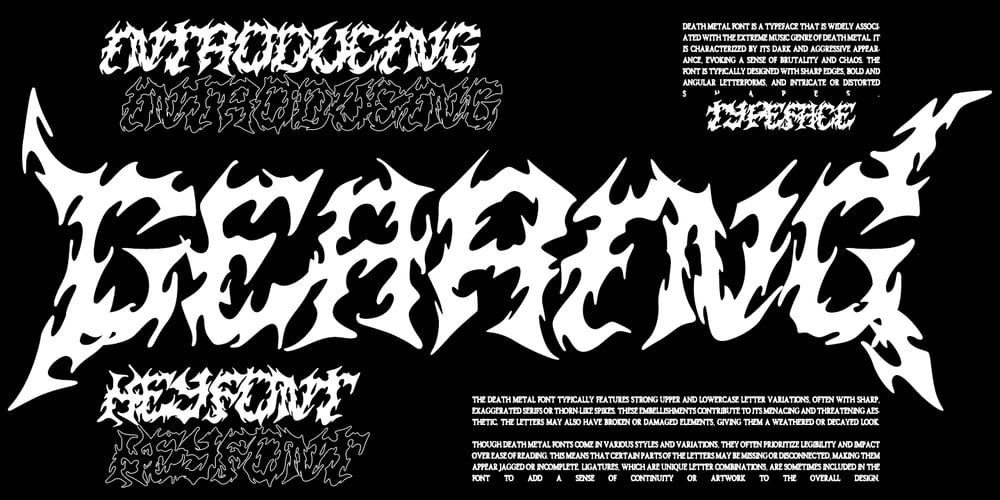
Gearing
Gearing font
Gearing Font Family was designed by Asep Rendy and published by Heyfonts. Gearing contains 1 styles and family package options. Gearing is a typeface that is widely associated with the extreme music genre of death metal. It is characterized by its dark and aggressive appearance, evoking a sense of brutality and chaos. The font is typically designed with sharp edges, bold and angular letterforms, and intricate or distorted shapes.The death metal font typically features strong upper and lowercase letter variations, often with sharp, exaggerated serifs or thorn-like spikes. These embellishments contribute to its menacing and threatening aesthetic. The letters may also have broken or damaged elements, giving them a weathered or decayed look.Though death metal fonts come in various styles and variations, they often prioritize legibility and impact over ease of reading. This means that certain parts of the letters may be missing or disconnected, making them appear jagged or incomplete. Ligatures, which are unique letter combinations, are sometimes included in the font to add a sense of continuity or artwork to the overall design.In terms of color, death metal fonts are commonly depicted in monochromatic shades such as black, grey, or dark red to maintain their sinister appearance. The color contrast often enhances the sharpness and intensity of the font, making it more visually striking.Due to its association with the underground music scene, the death metal font has become an essential element in album covers, band logos, posters, and merchandise. It effectively conveys the aggressive and rebellious spirit of the genre, becoming instantly recognizable to fans and enthusiasts.